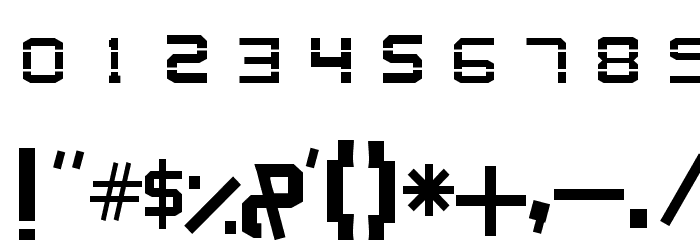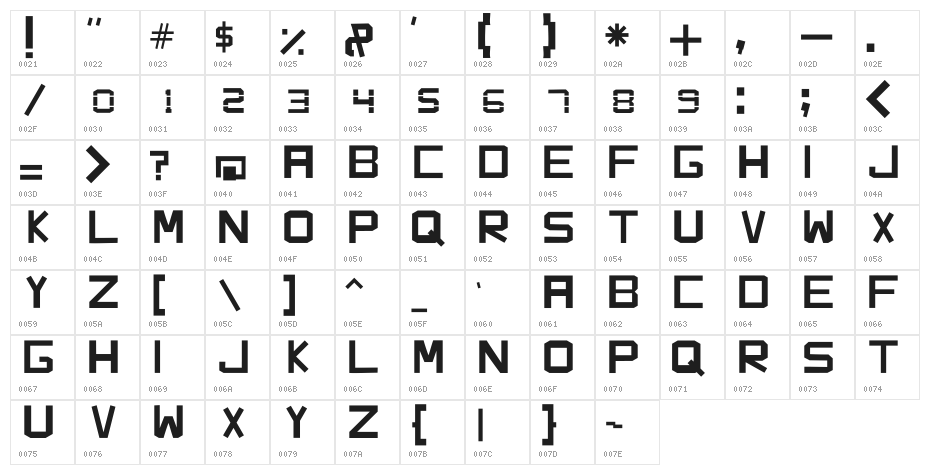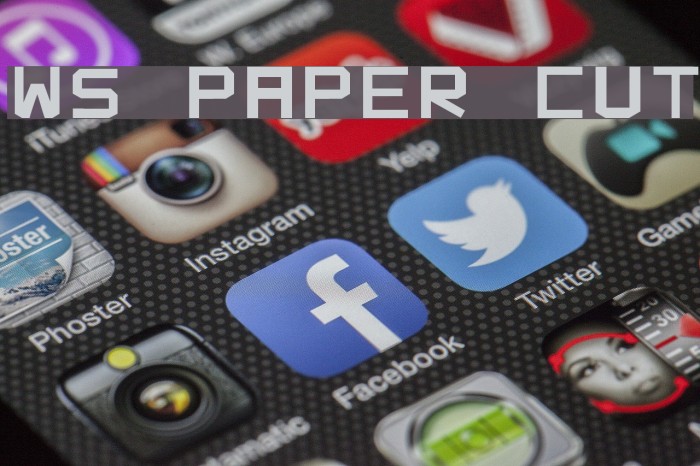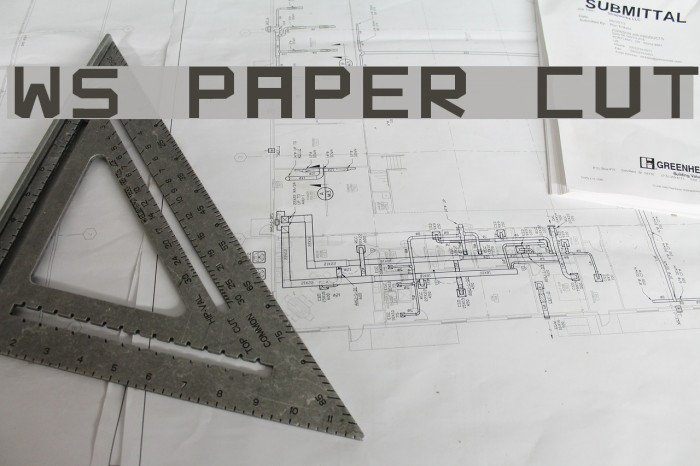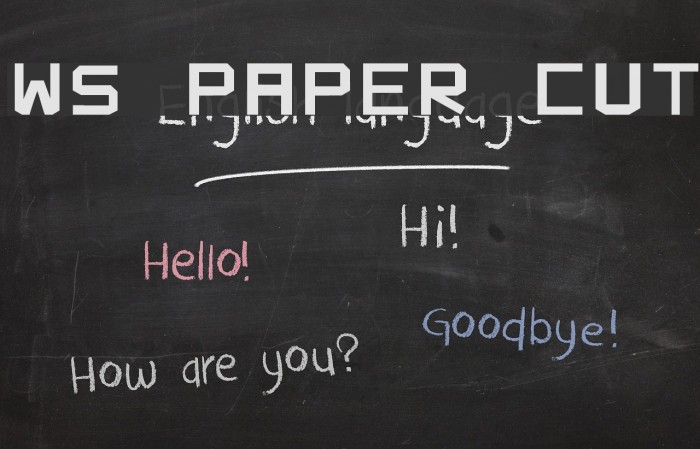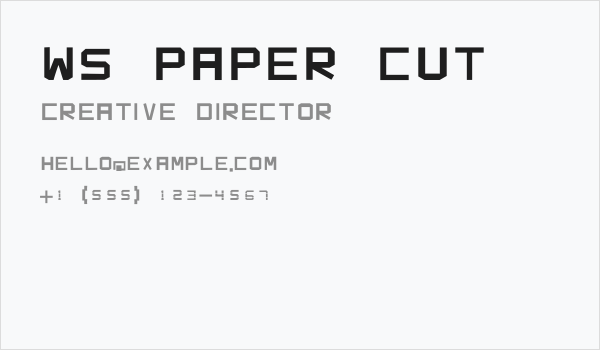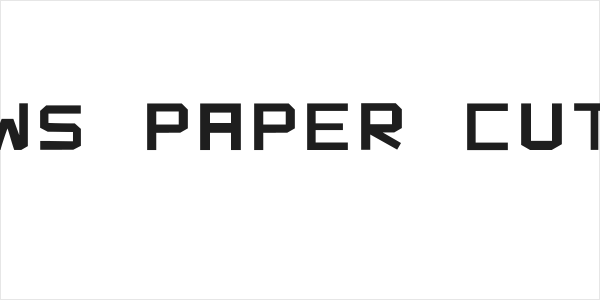
WS Paper Cut Font
WS Paper Cut Description
This font features a bold, geometric design with a distinct, angular appearance. Each character is constructed with sharp, straight lines and right angles, giving it a modern, industrial feel. The uppercase letters are uniform in height, while the numbers and special characters maintain the same angular style, ensuring consistency across all glyphs. The font's unique aesthetic is reminiscent of stencil or cut-out designs, making it stand out in any application. Its boldness and clarity make it highly legible, even at smaller sizes, while the angularity adds a touch of edginess and modernity.
| Proposed Projects | Ideal for branding, posters, signage, and any project requiring a modern, edgy look. |